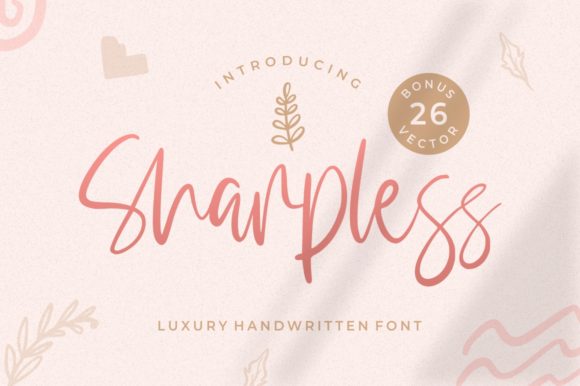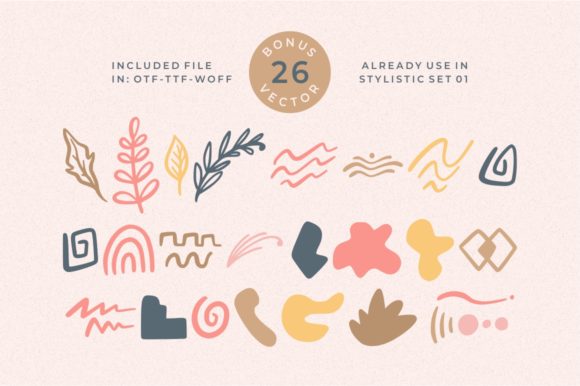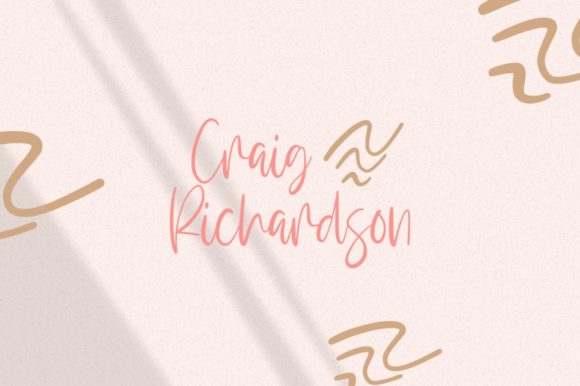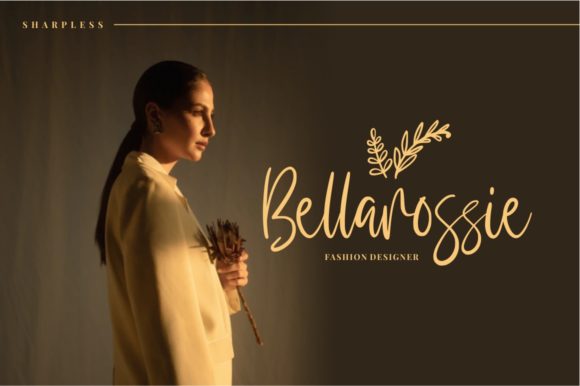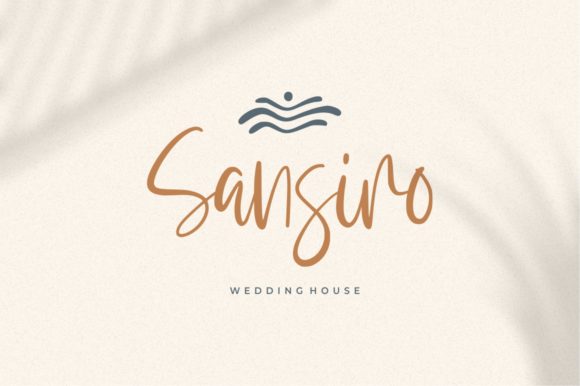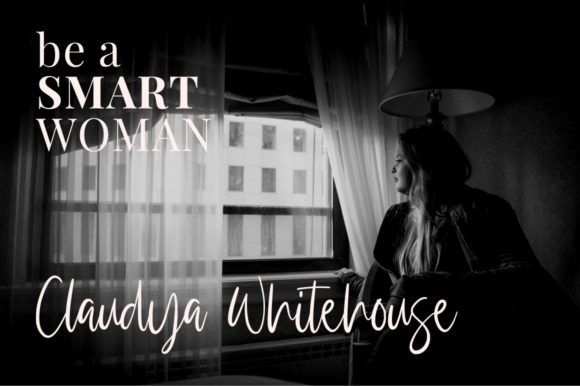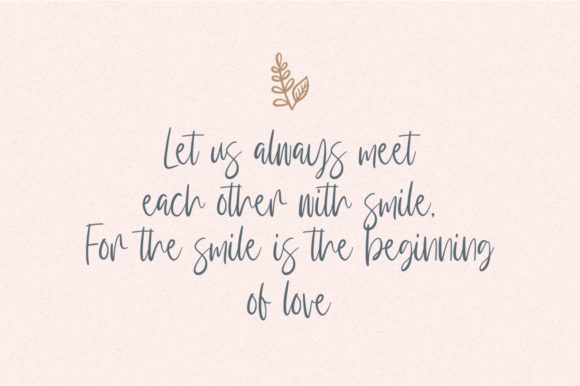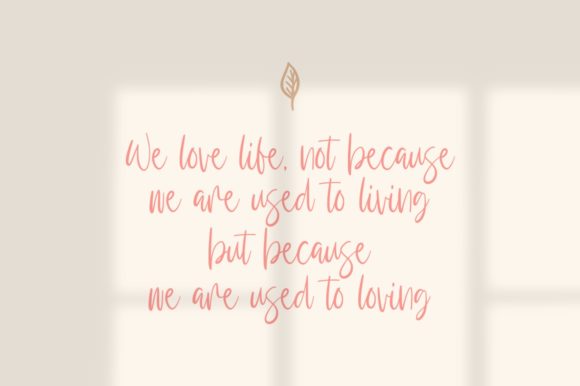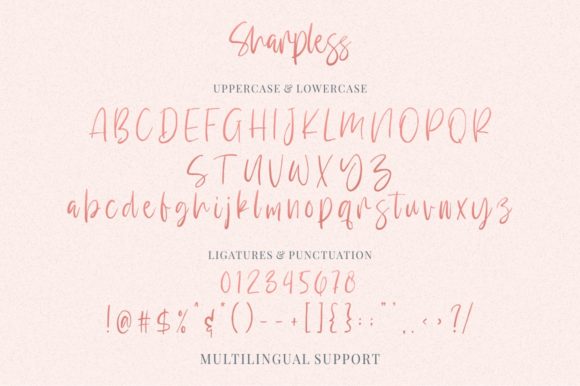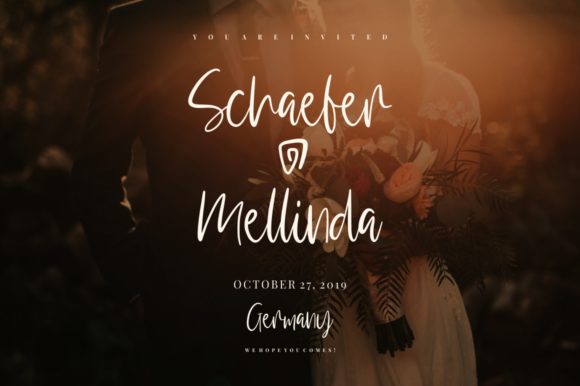
Sharpless Font
About Sharpless Font
Sharpless is a charming and elegant script font that will add a personal touch to any design project. Fall in love with its authentic twist!